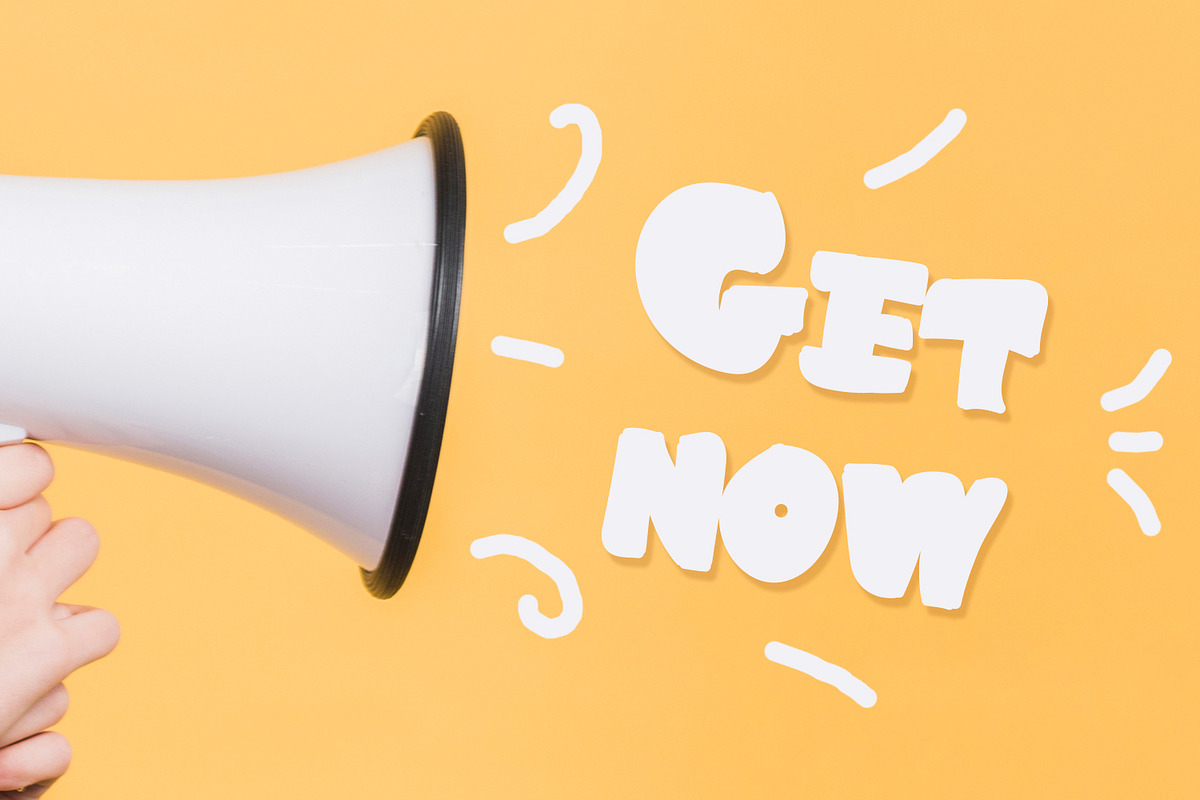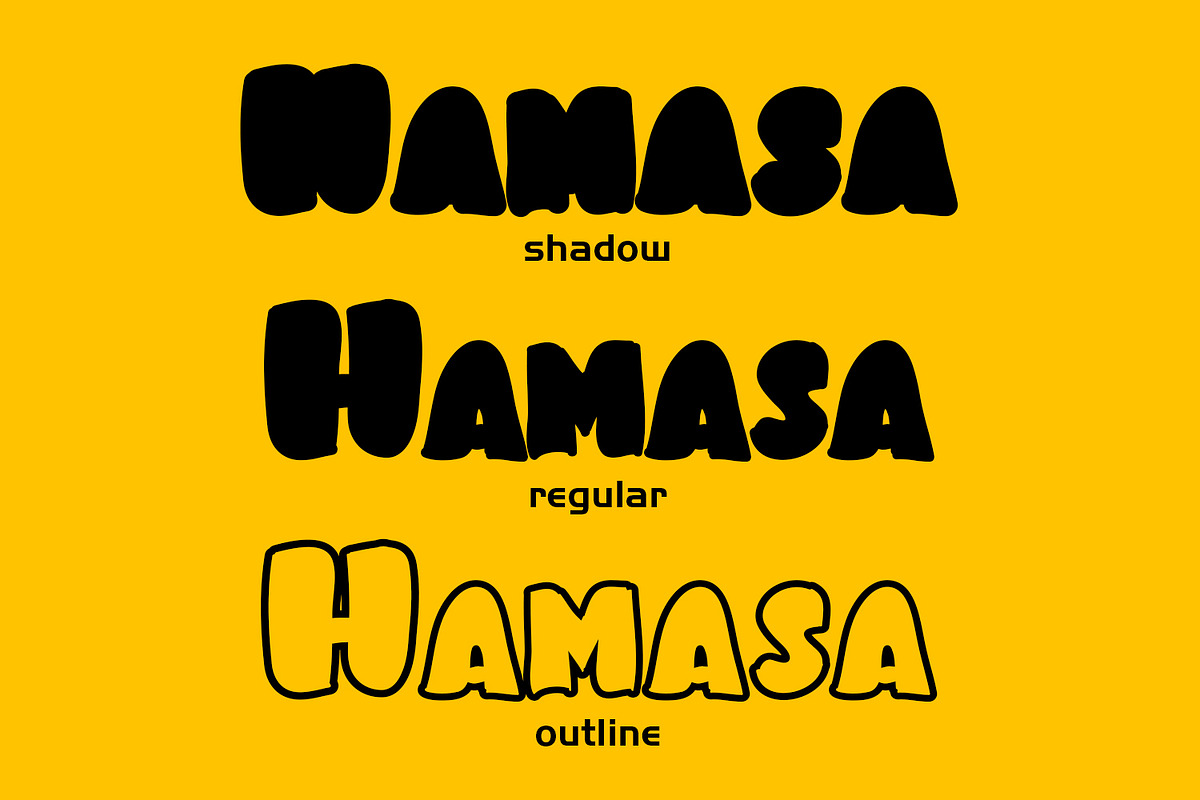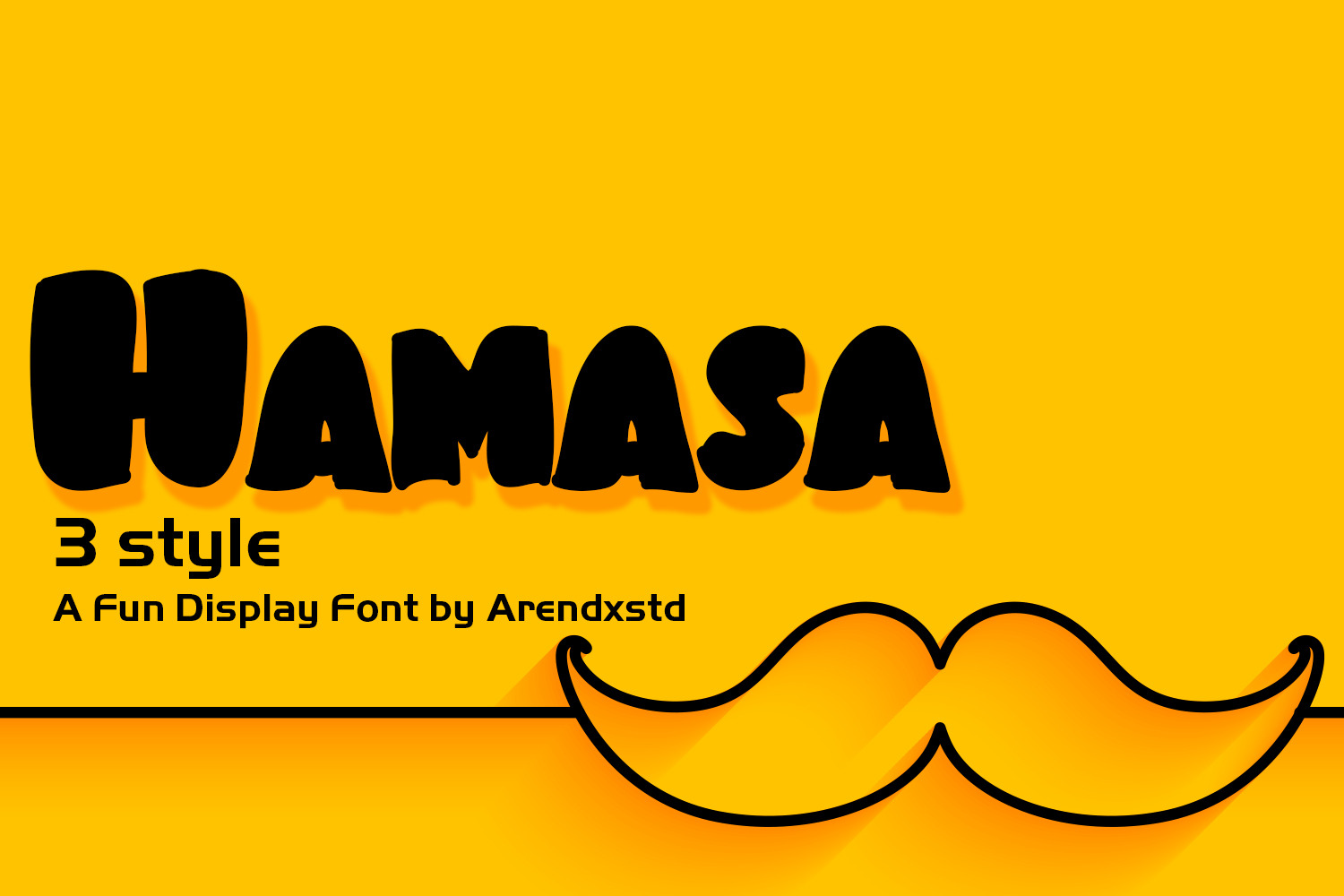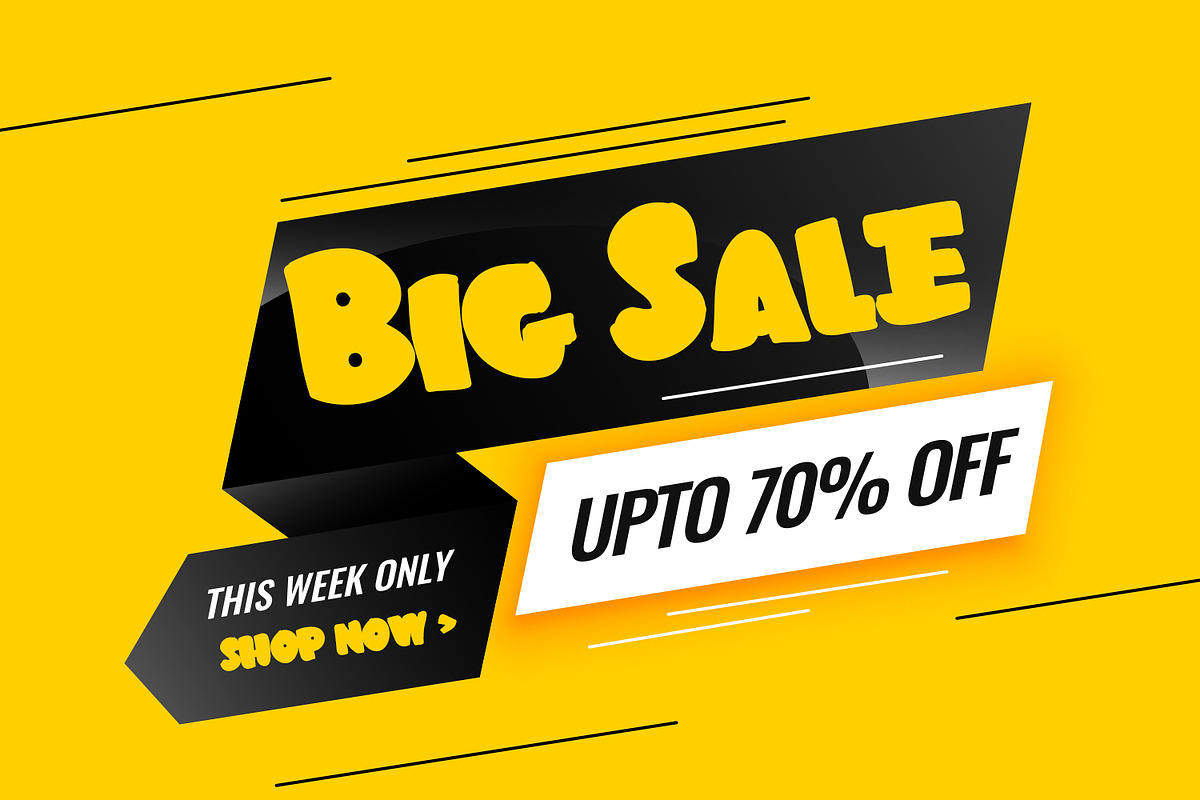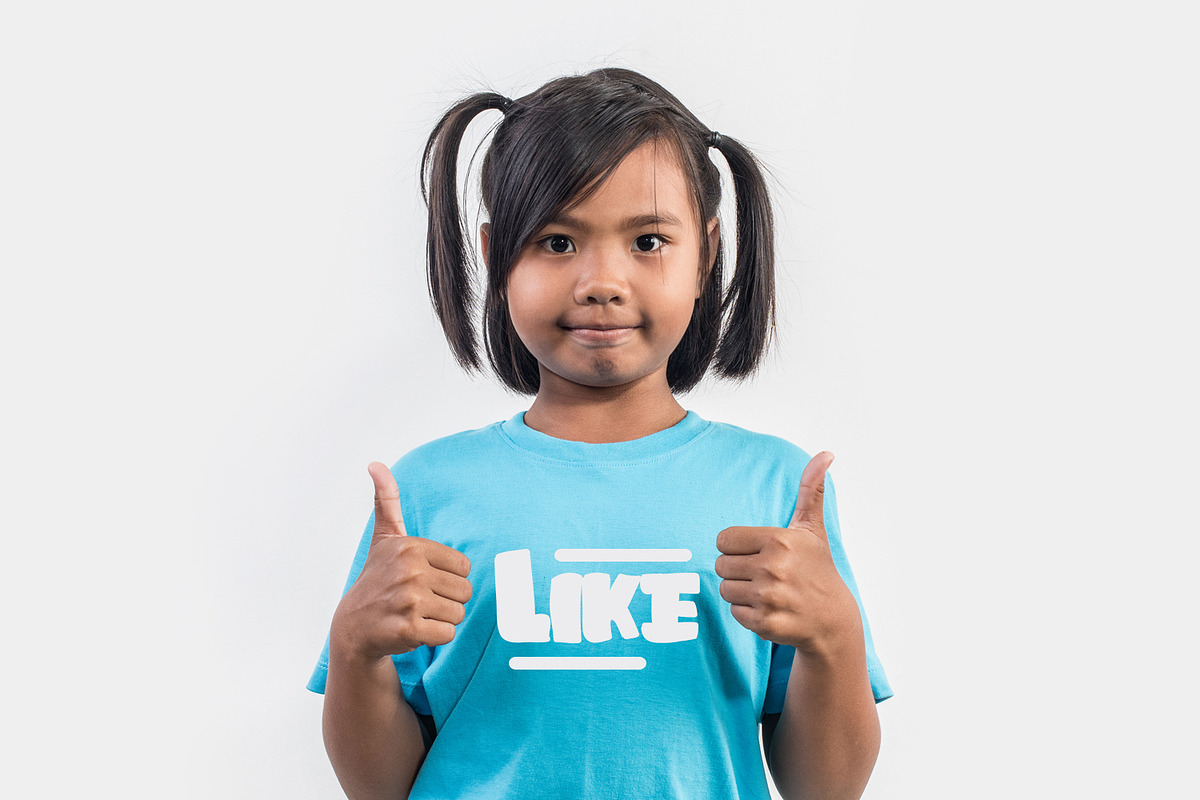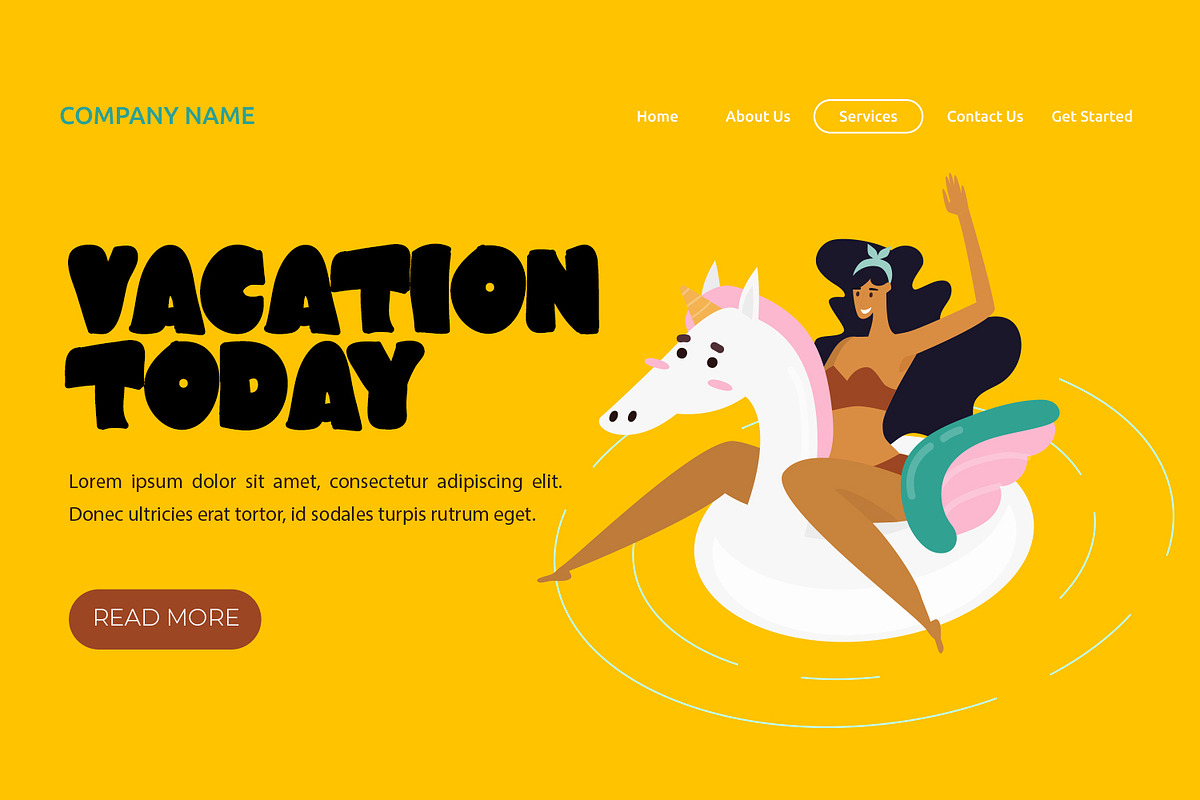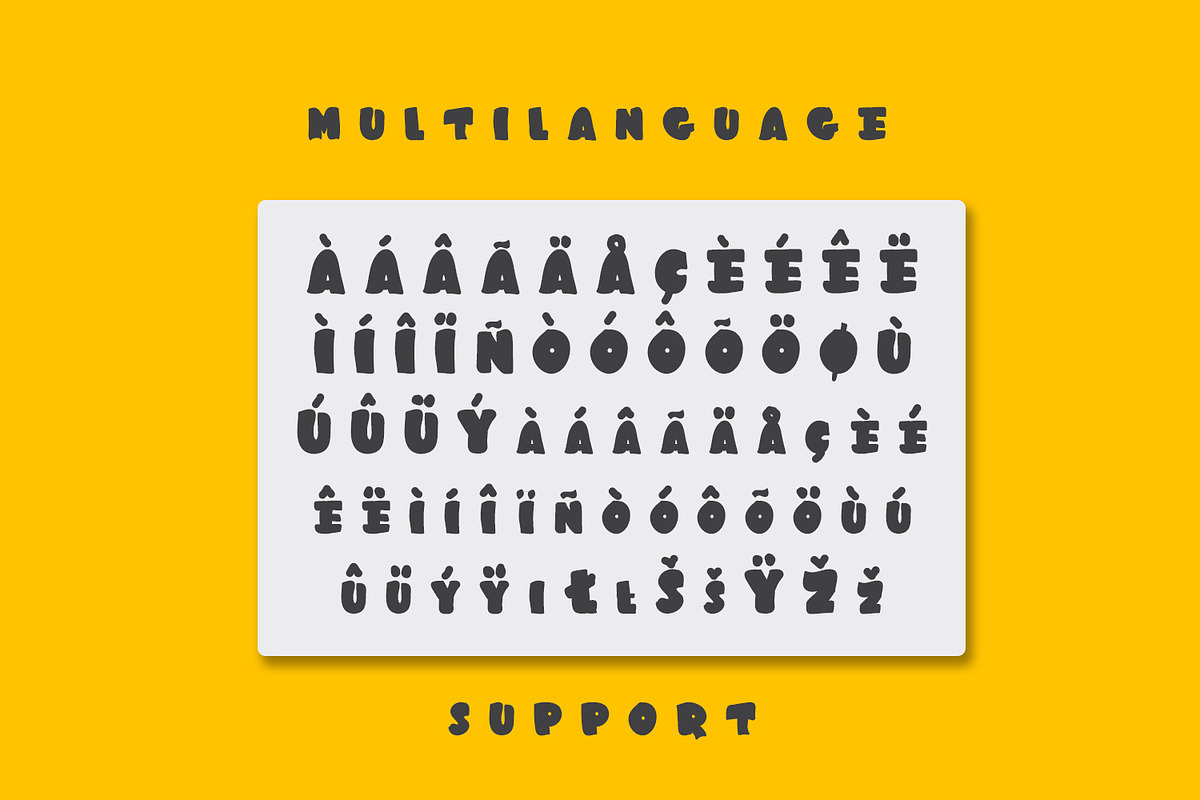
Hamasa Fun Display Font
Hamasais a very cute font with lots of variation in it that make the atmosphere happy . designed with a charming and cheerful character that will be very suitable to be used as a display of your main product that can be implemented right in various design needs of your project
Hamasa has 3 styles 1. Regular style 2. Outline style 3. Shadow style